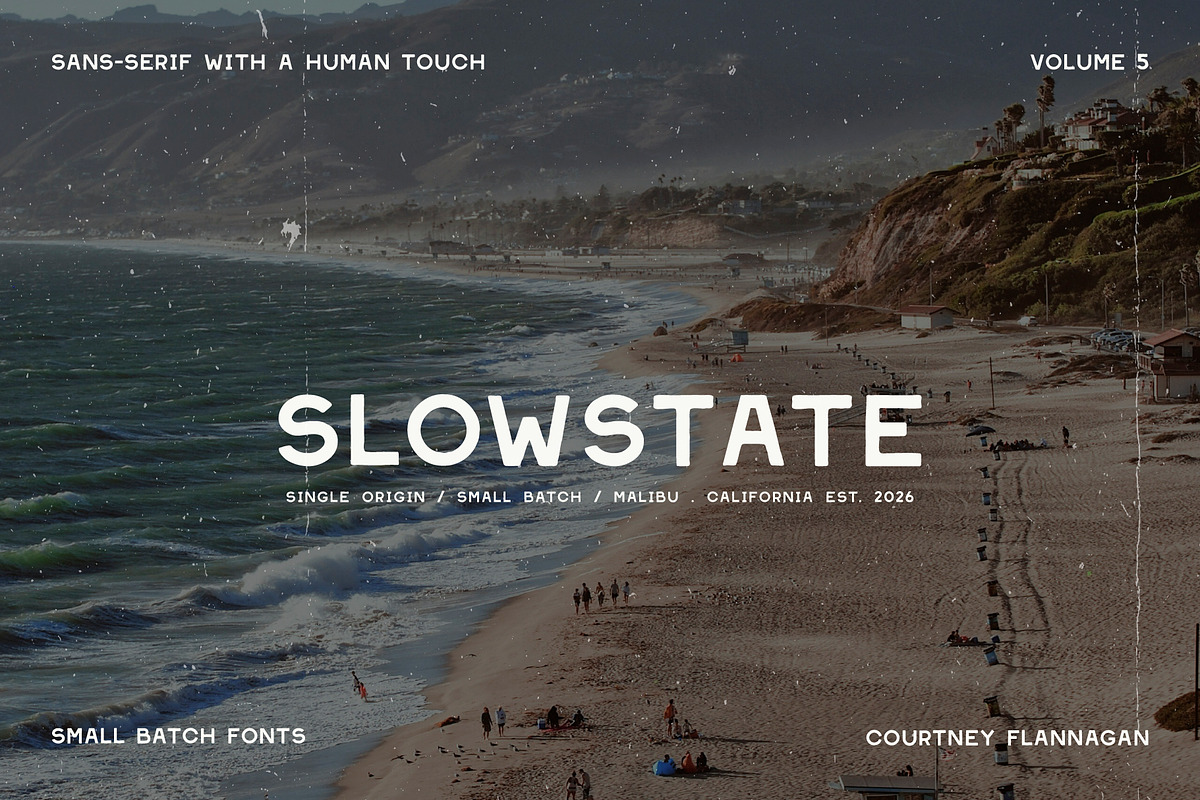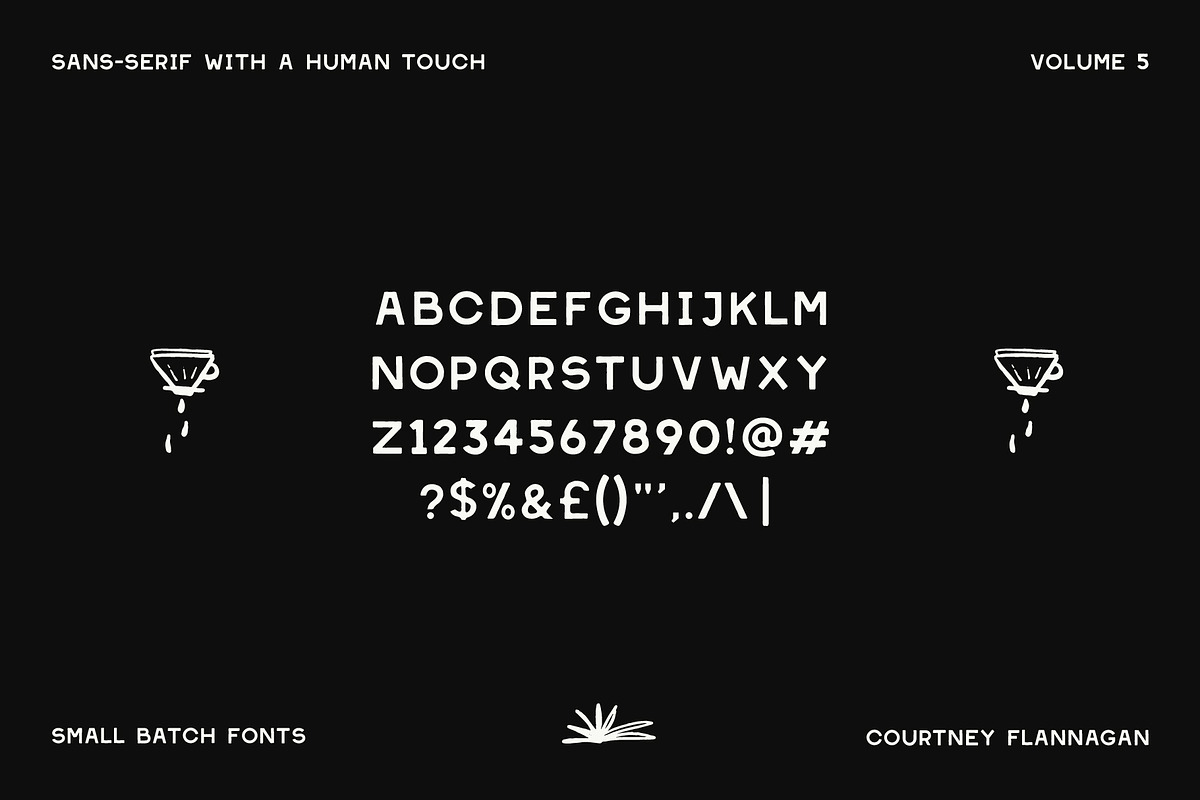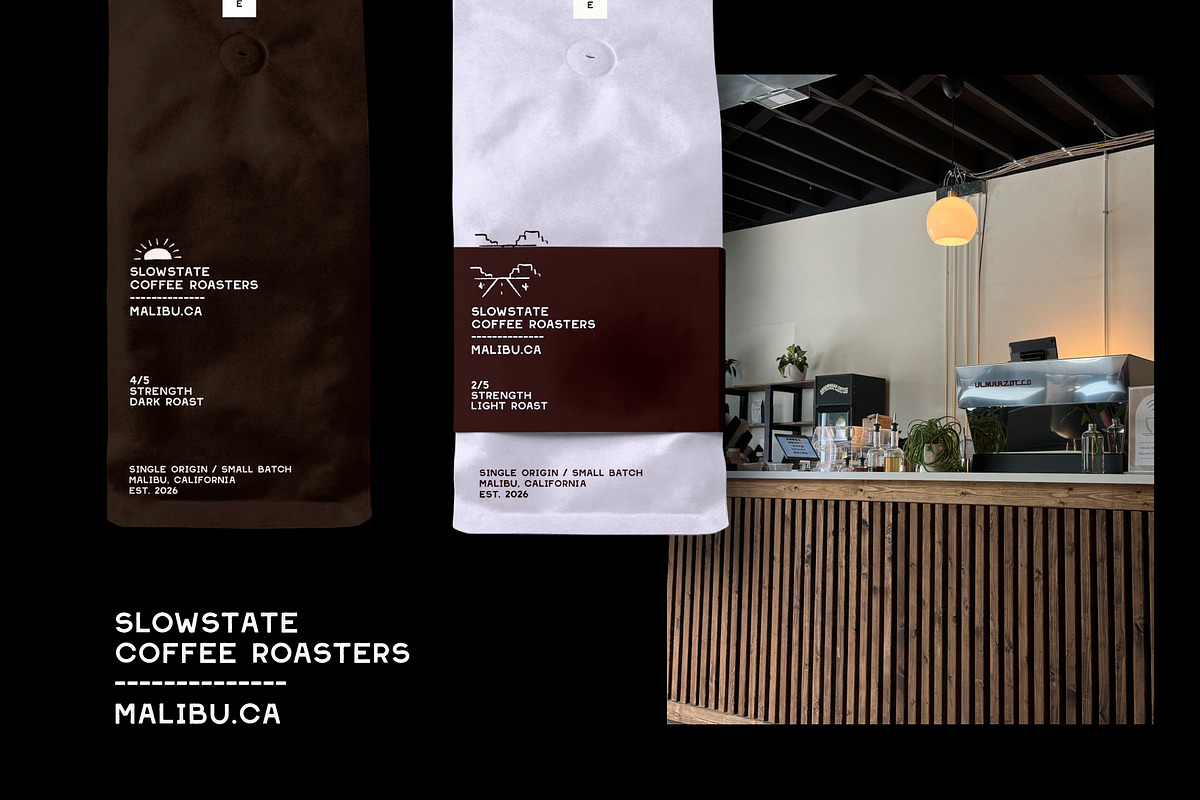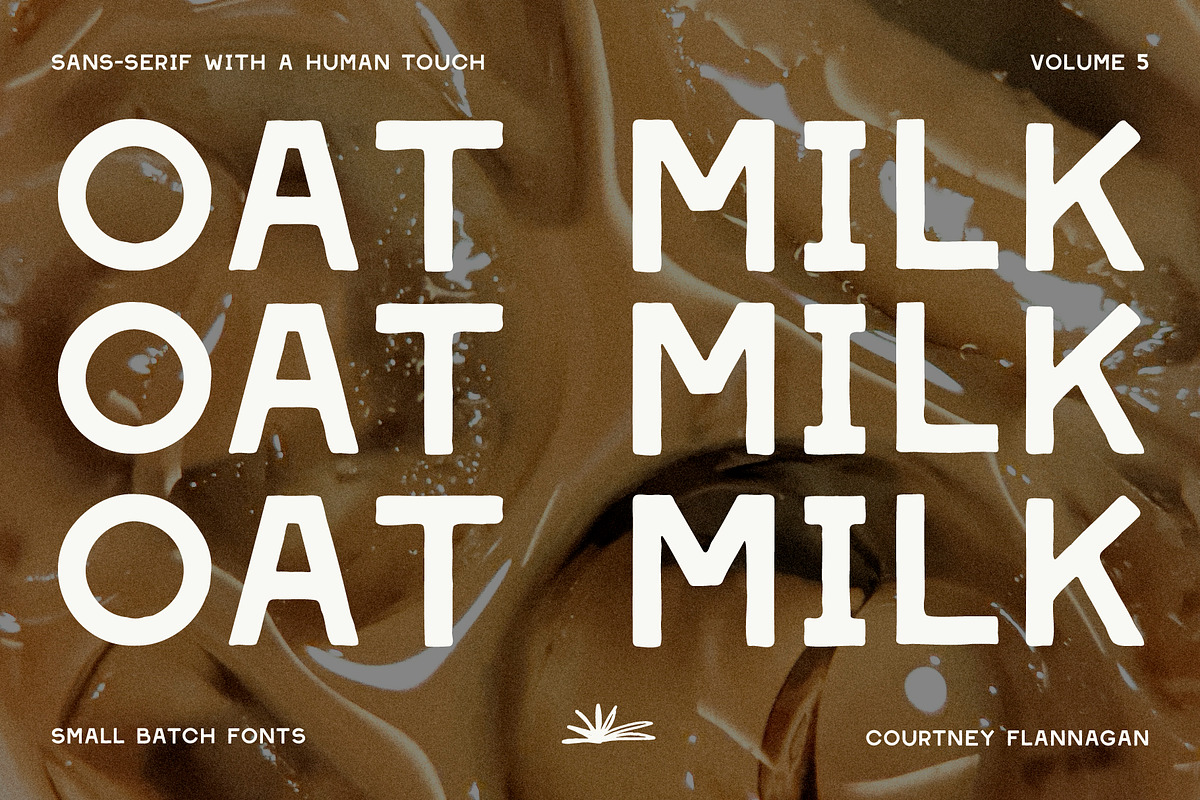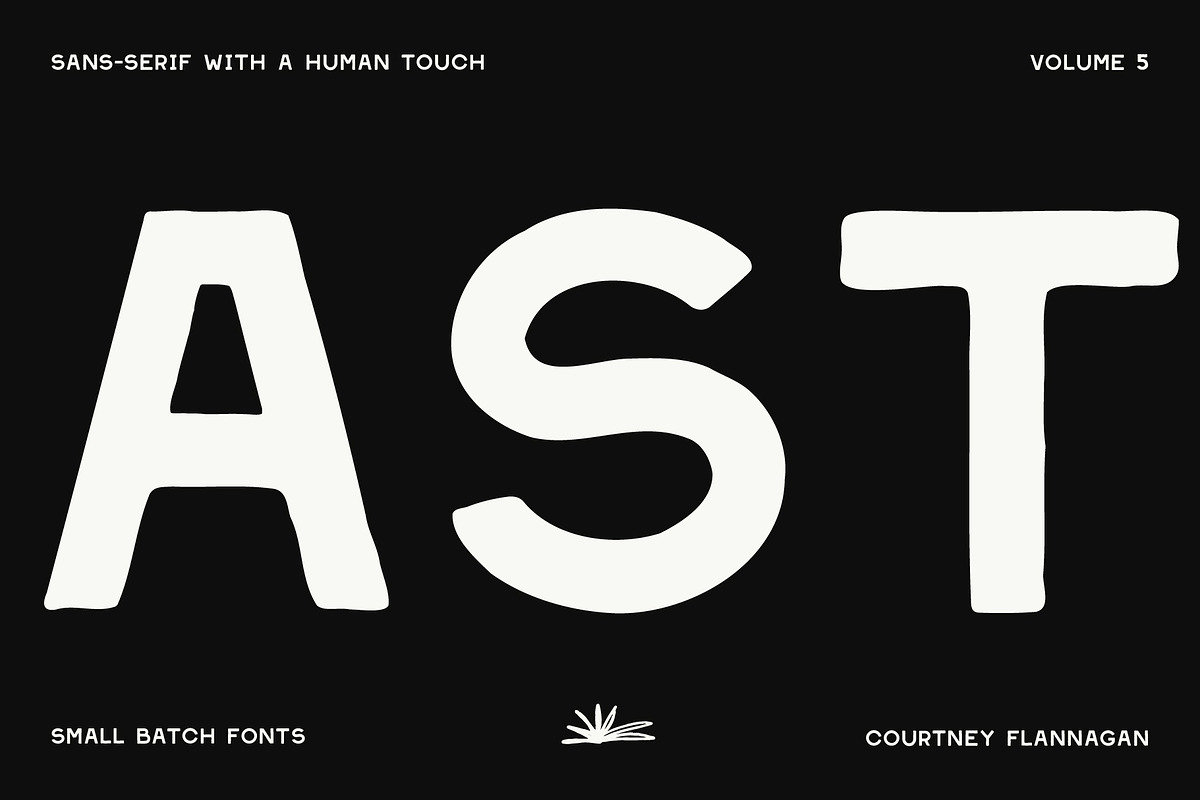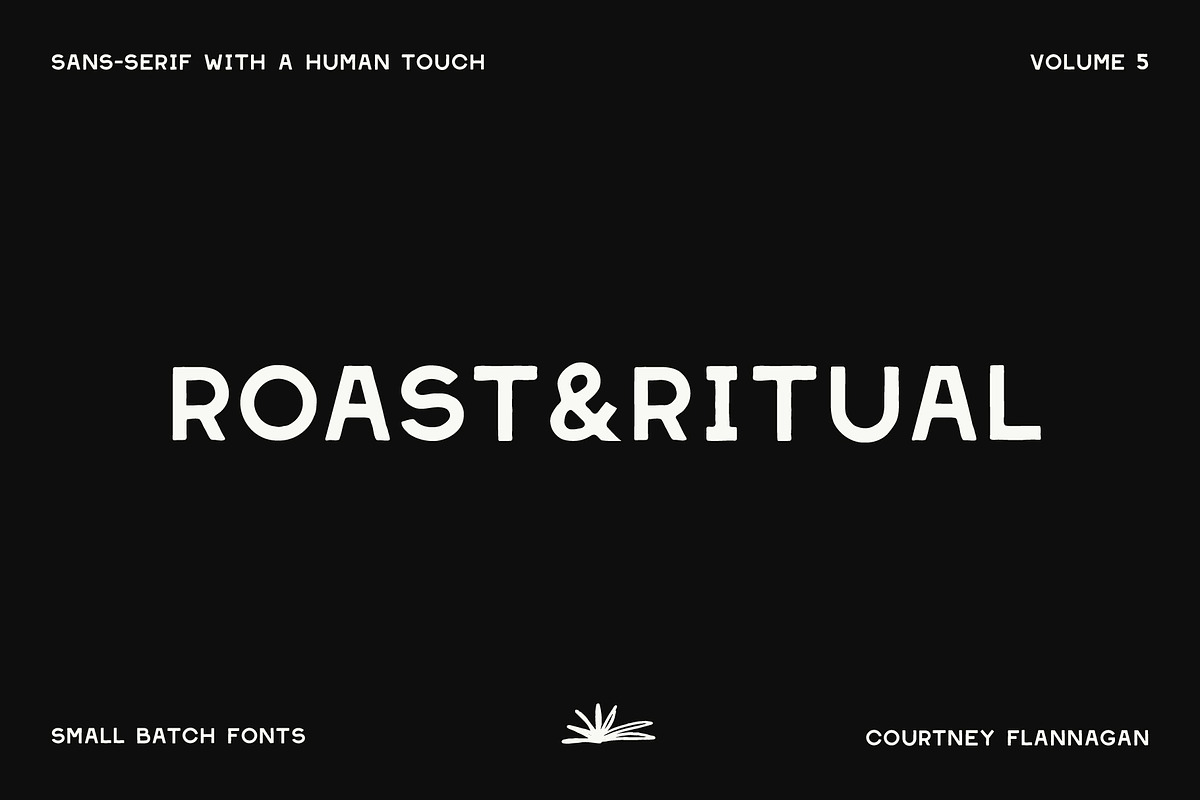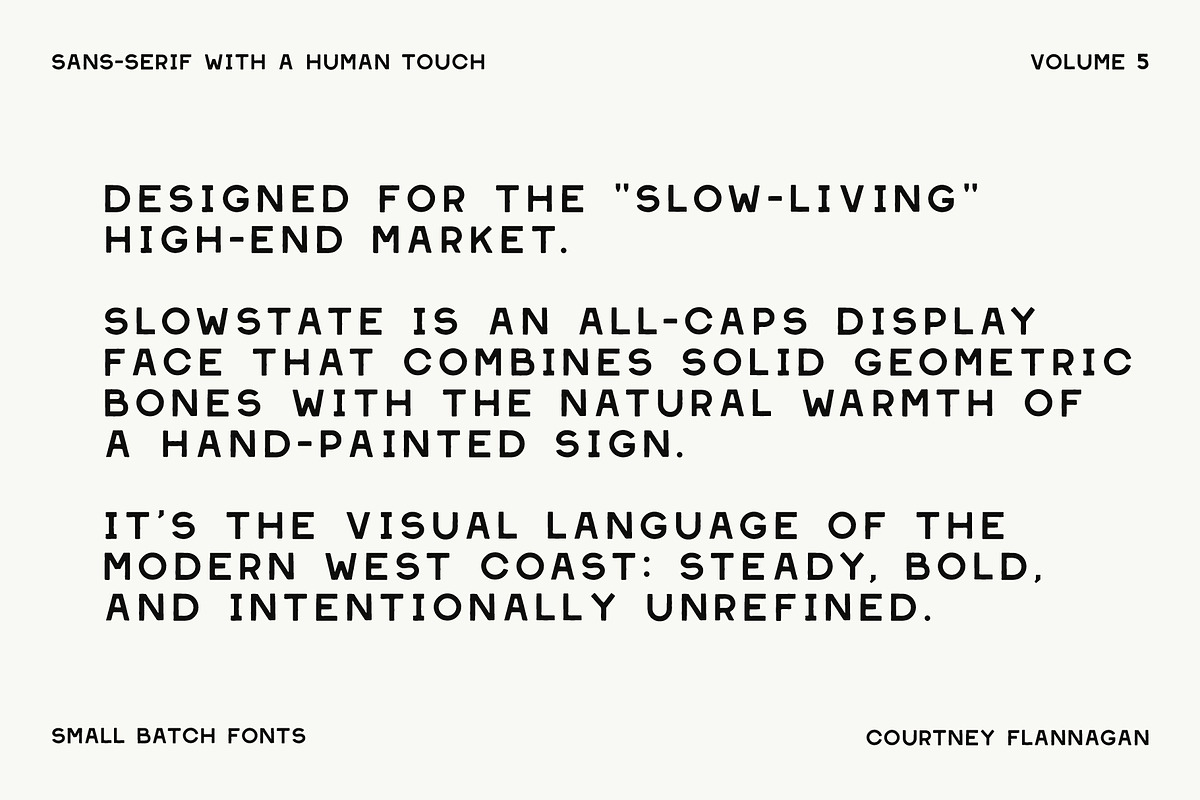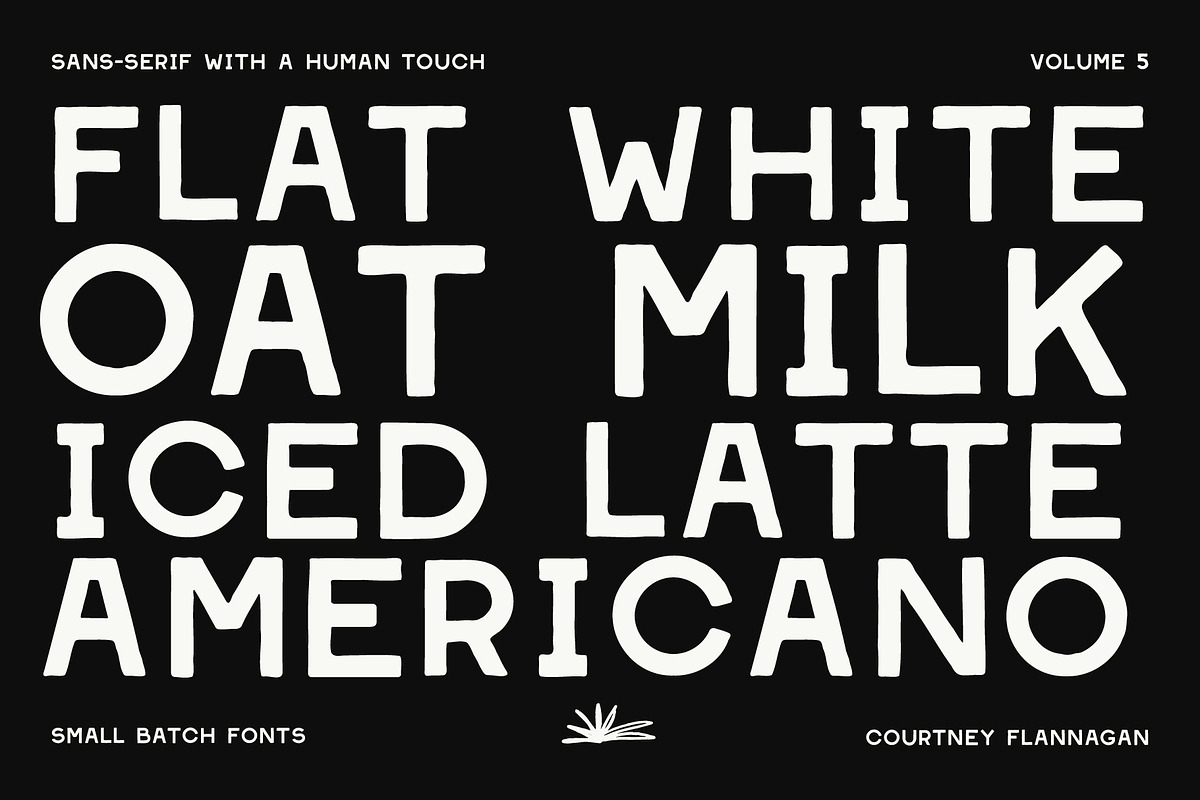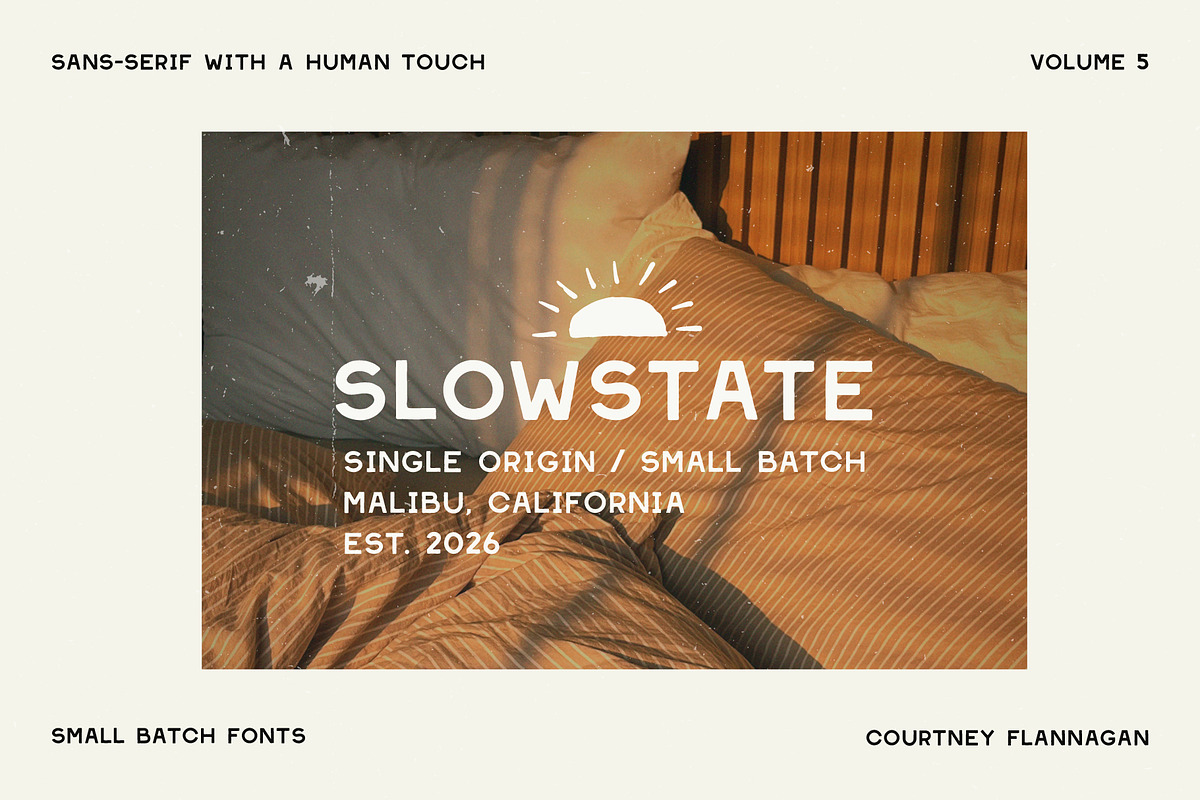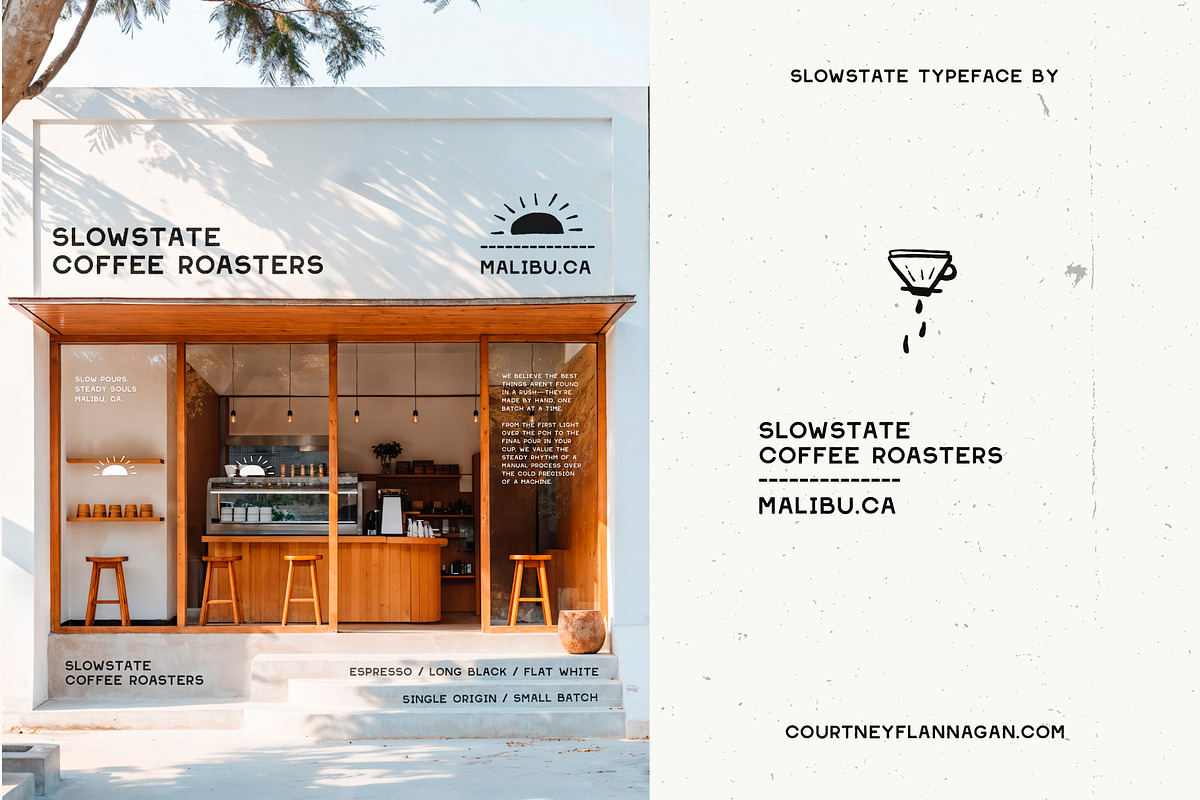
Slowstate | Malibu-inspired display
I built Slowstate because I was tired of "perfect" geometric fonts feeling too cold for high-end hospitality and branding projects. If you’ve been looking for a display face that has the authority of a classic sans-serif but the soul of a hand-painted sign on Highway 1, this is for you.
Designed for the "slow-living" luxury market, Slowstate balances clean, solid geometric bones with the natural warmth of a professional chalk pen. It’s the visual language of the modern West Coast: steady, bold, and intentionally unrefined.
The "Slowstate" Logic This is a fully uppercase display font designed for impact and rhythm.
Full Uppercase & Scaled-Uppercase Alphabet
Standard Punctuation & Numbers (The ones you actually use every day)
Ideal for: Coffee Roasters, Surf Brands, Minimalist Packaging, and anyone who needs a font that feels like it has a pulse.